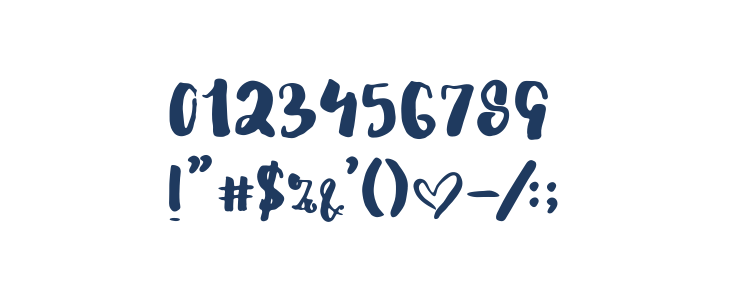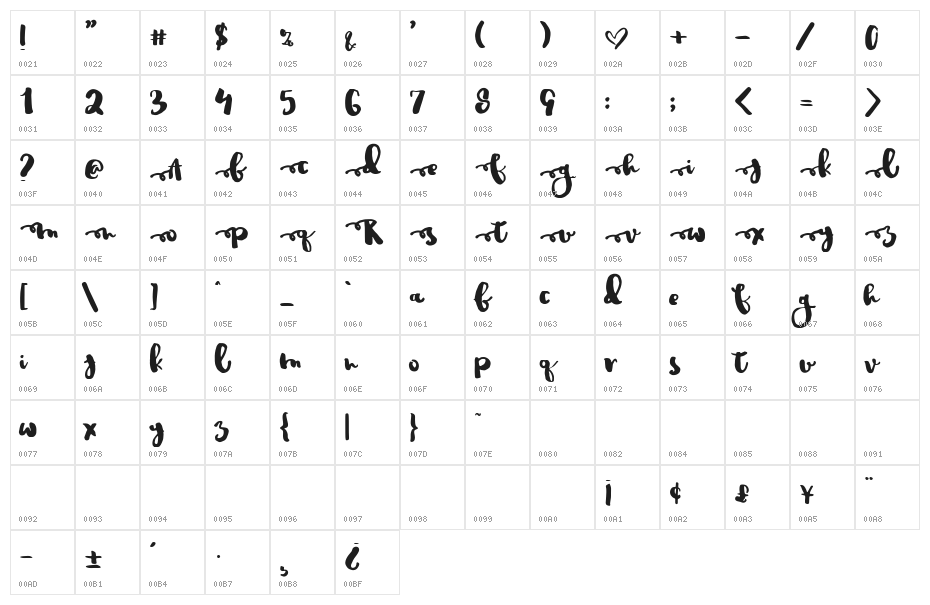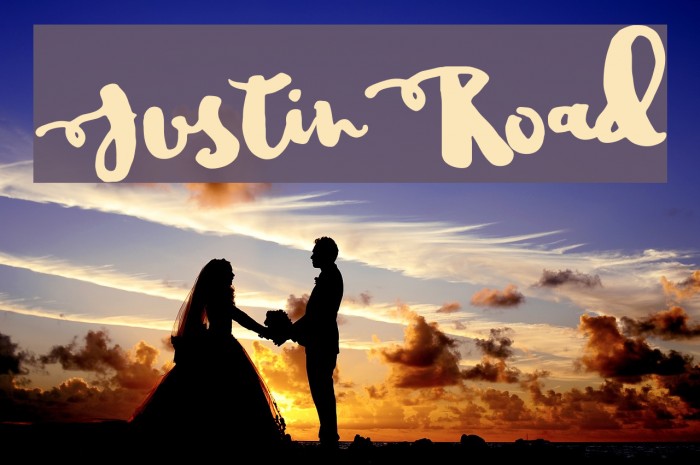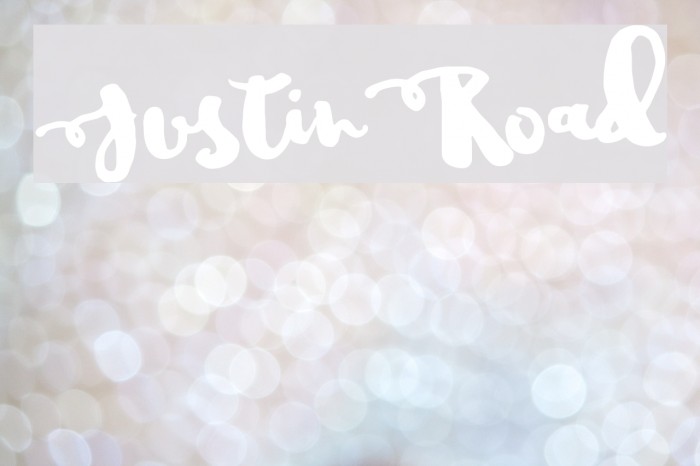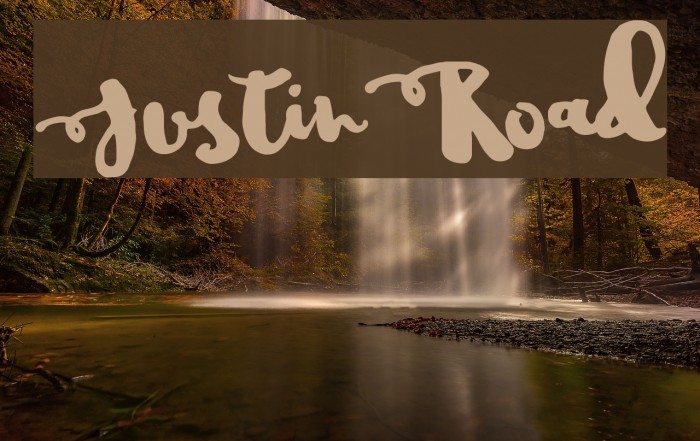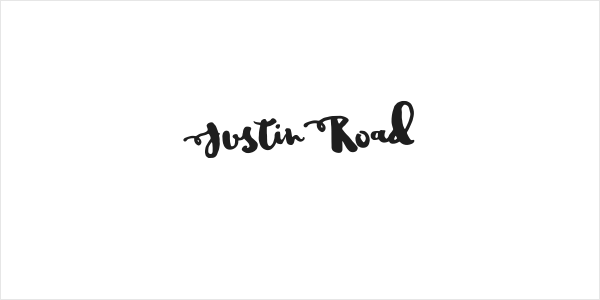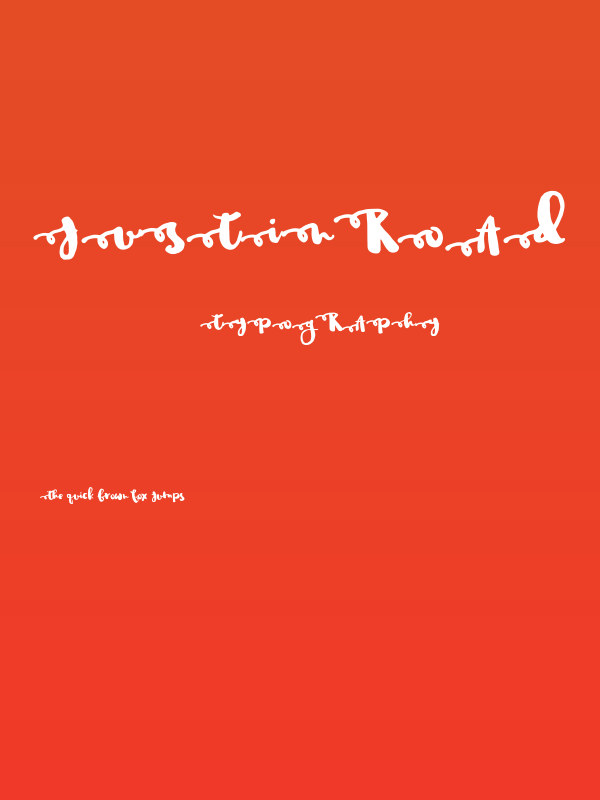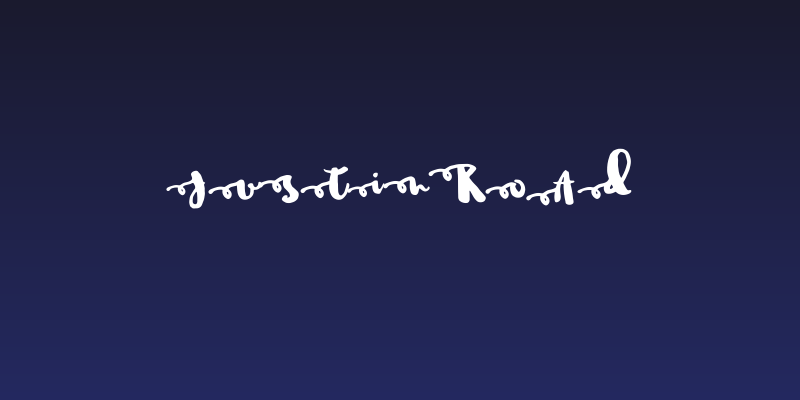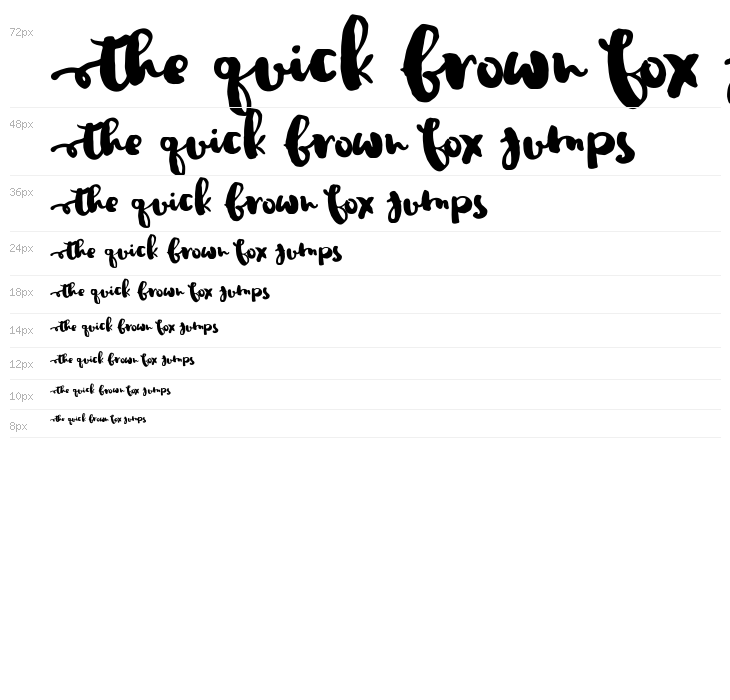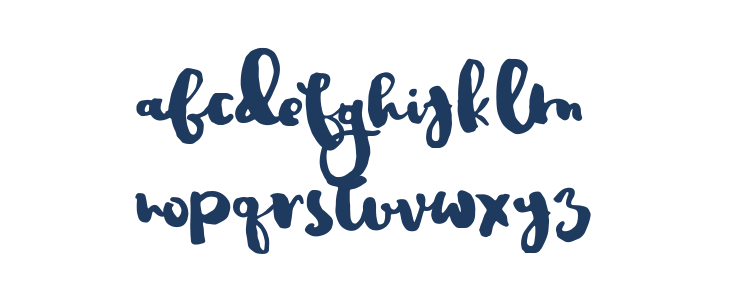
JustinRoad Font
JustinRoad Description
This font features a bold, playful script style with a hand-drawn appearance. The letters are connected with fluid strokes, giving it a whimsical and artistic feel. The uppercase letters are slightly larger and more pronounced, while the lowercase letters maintain a consistent flow. The numbers and special characters are designed to match the playful and informal style of the alphabet. The overall look is casual yet expressive, making it suitable for creative and informal projects.
| Proposed Projects | Ideal for greeting cards, invitations, posters, and branding projects that require a personal and artistic touch. |